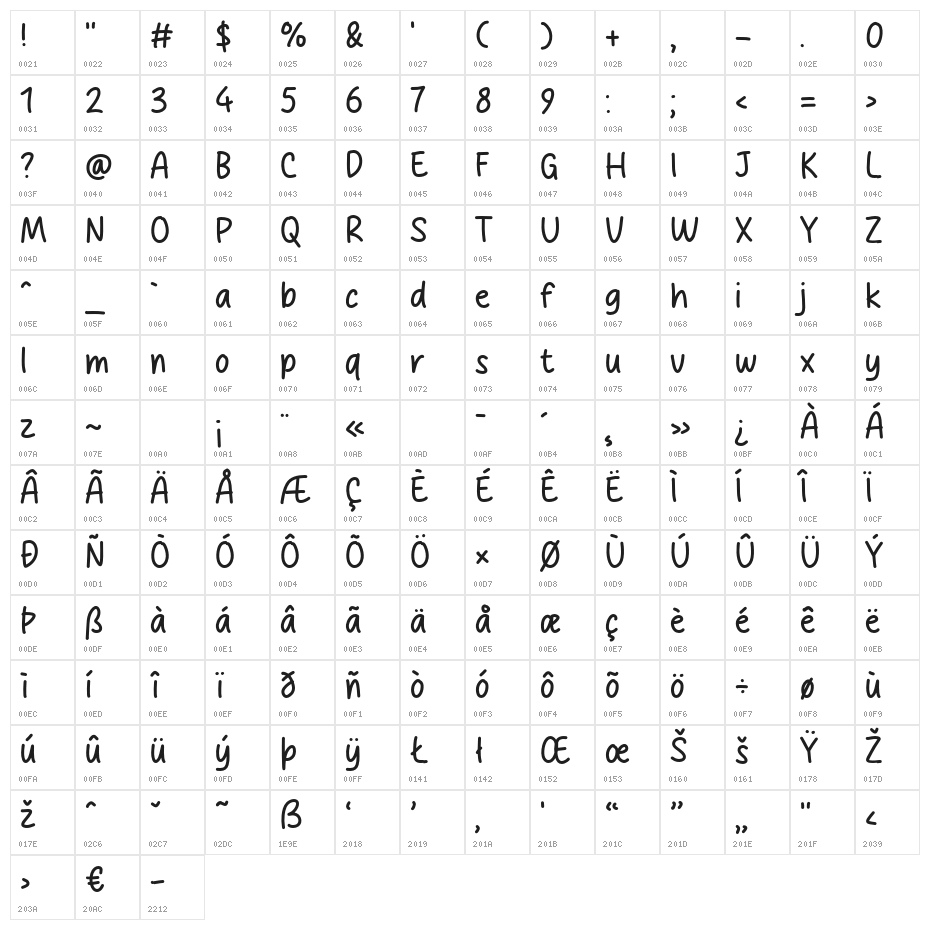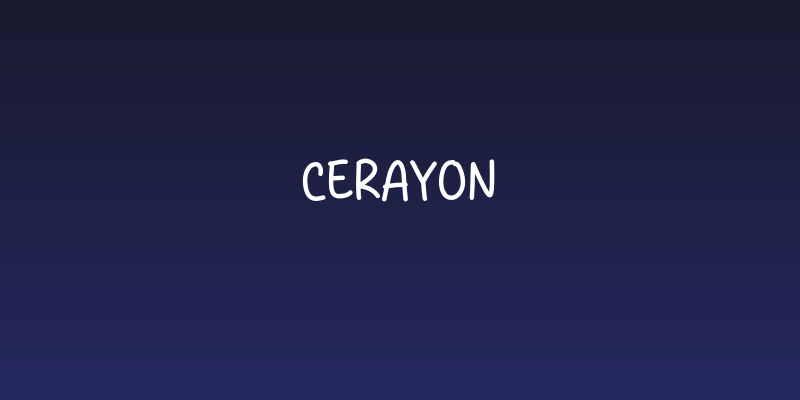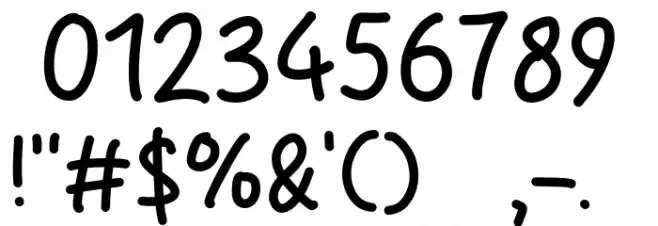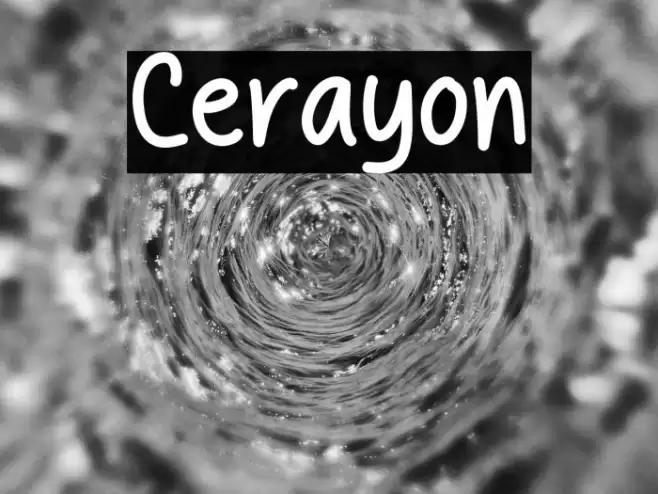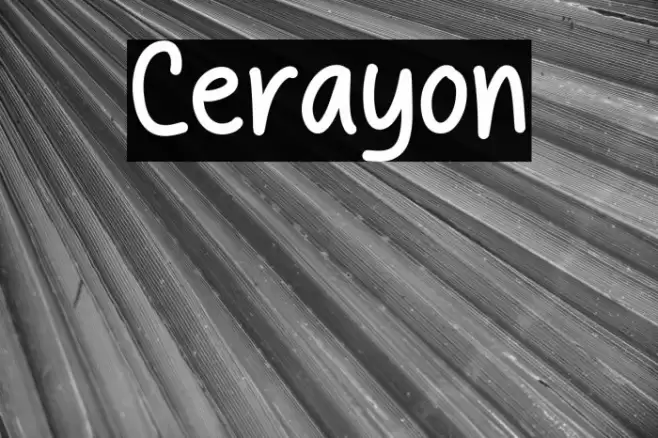
Cerayon Font
Cerayon Description
This font exhibits a playful and casual handwritten style, characterized by its rounded and slightly irregular letterforms. The strokes are smooth and consistent, giving it a friendly and approachable appearance. The uppercase and lowercase letters maintain a uniform height, contributing to a cohesive look. Numbers and special characters are designed with the same playful aesthetic, ensuring versatility across various applications. The overall design is clean and legible, making it suitable for informal and creative projects.
| Overall Style | Casual |
| Use Case | Logos, Headlines, Informal Text |
| Proposed Projects | Ideal for greeting cards, children's books, casual branding, and social media graphics. |